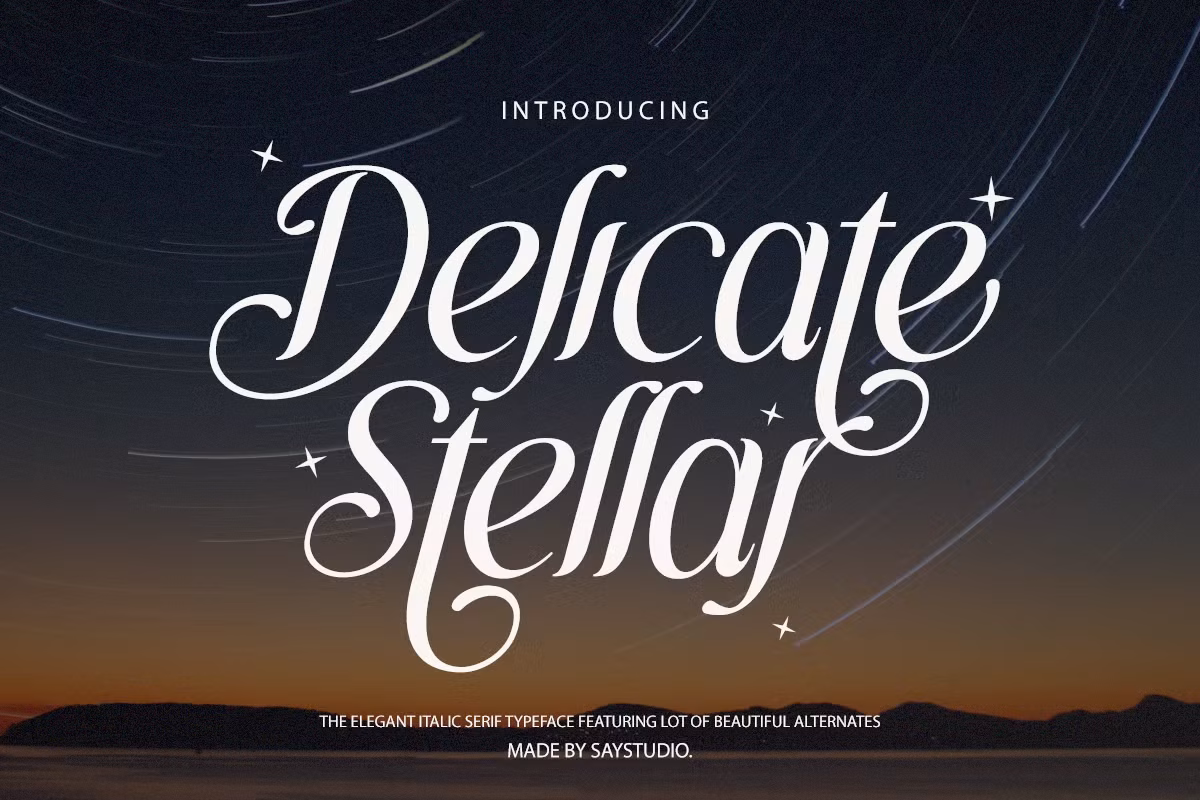
Bring elegance and charm to your designs with Delicate Stellar Font Free Download. This graceful serif typeface features refined letterforms with subtle details, perfect for creating sophisticated branding, invitations, logos, websites, and more.
Delicate Stellar combines delicate curves with balanced proportions, offering a timeless, upscale aesthetic. It includes uppercase and lowercase letters, numerals, punctuation, and multilingual support, making it versatile for a variety of design projects.
Ideal for high-end, elegant projects that need a refined touch. For any commercial use, be sure to obtain the appropriate license. Download Delicate Stellar Font Free Download today and infuse your designs with elegance and beauty.